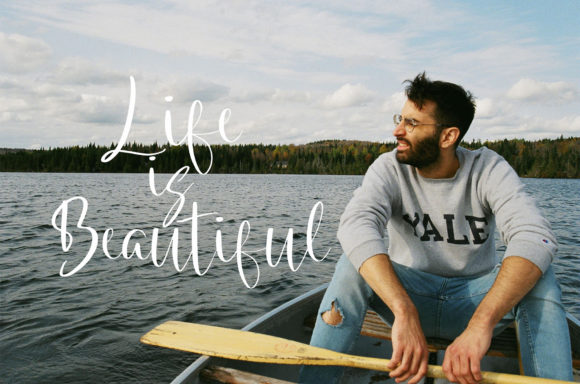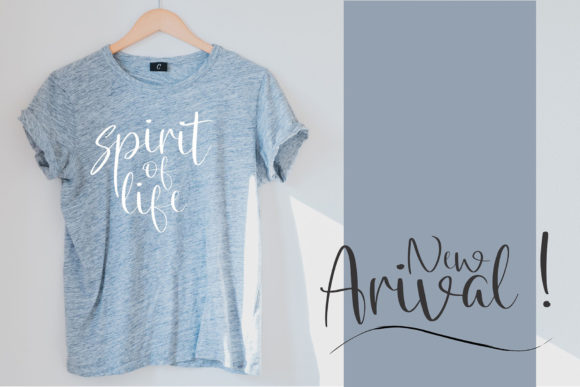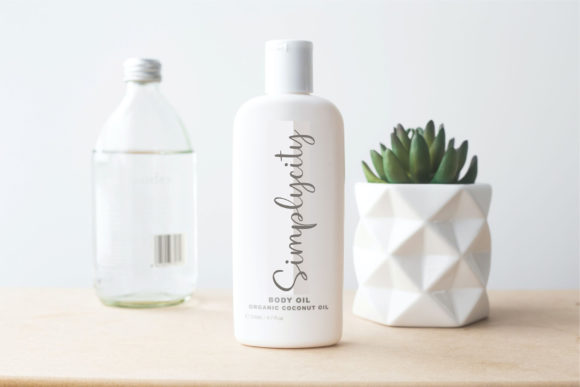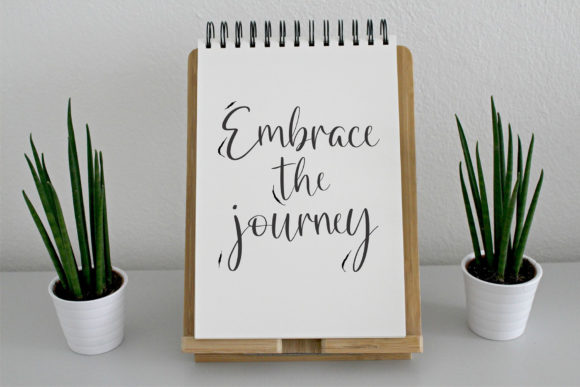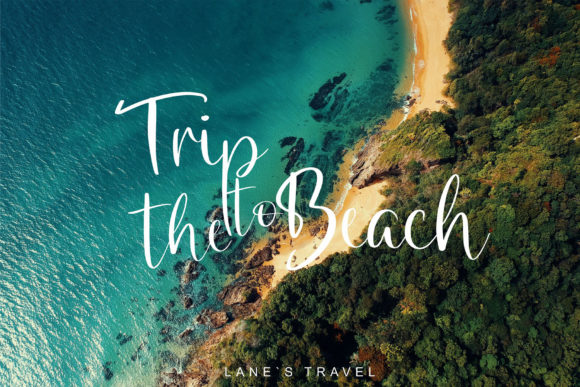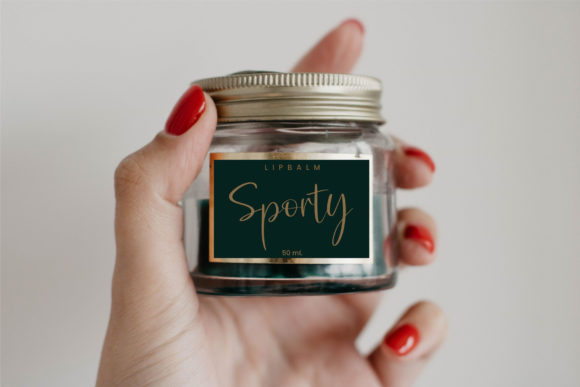
Glethalia Font: Elevate Your Designs with Elegance and Luxury
In the world of design, typography plays a crucial role in conveying the tone and personality of a brand or project. If you’re looking for a font that exudes elegance, luxury, and a personal touch, look no further than Glethalia. This beautiful handwritten font is perfect for designers and crafters who want to add a touch of sophistication to their work.
What is Glethalia Font?
Glethalia is a stunning handwritten font that combines simple script elements with a luxurious feel. Its elegant strokes and curves make it perfect for a wide range of design projects, from branding and logos to wedding designs and social media posts. With Glethalia, you can add a personal touch to your designs and make them stand out from the crowd.
Key Features of Glethalia Font
- Elegant and Luxurious: Glethalia’s sophisticated design makes it perfect for high-end branding projects, luxury packaging, and elegant wedding designs.
- Simple Script Elements: The font’s simple script elements add a personal touch to any design, making it perfect for crafters and designers who want to create unique and eye-catching projects.
- Versatile: Glethalia is suitable for a wide range of design projects, including logos, social media posts, advertisements, product packaging, T-shirt design, and more.
- Easy to Read: Despite its elegant design, Glethalia is easy to read, making it perfect for body text and captions.
Use Cases for Glethalia Font
Glethalia is a versatile font that can be used in a variety of design projects. Here are some use cases to get you started:
- Branding Projects: Use Glethalia to create elegant and luxurious brand identities that make a lasting impression.
- Wedding Designs: Add a touch of sophistication to your wedding designs, including invitations, stationery, and signage.
- Social Media Posts: Elevate your social media posts with Glethalia’s elegant design, making them perfect for fashion, beauty, and lifestyle brands.
- Product Packaging: Use Glethalia to create luxurious packaging that stands out on store shelves.
- T-Shirt Design: Create eye-catching T-shirt designs that make a statement with Glethalia’s elegant script.
Tips for Using Glethalia Font
To get the most out of Glethalia, here are some tips to keep in mind:
- Pair with Neutral Colors: Pair Glethalia with neutral colors like black, white, and gray to let the font shine.
- Experiment with Sizes: Experiment with different font sizes to create visual hierarchy and add emphasis to your designs.
- Add Decorative Elements: Add decorative elements like illustrations and graphics to enhance your designs and make them more engaging.
Glethalia is a stunning handwritten font that can elevate your designs with its elegant and luxurious feel. With its simple script elements and versatile design, it’s perfect for a wide range of projects, from branding and logos to wedding designs and social media posts. Whether you’re a designer or crafter, Glethalia is a great addition to your font library.